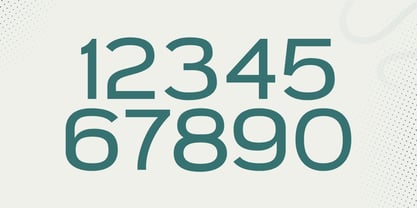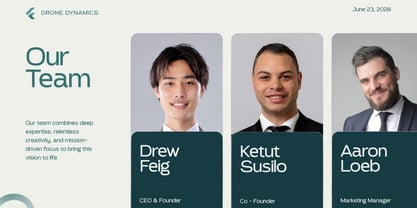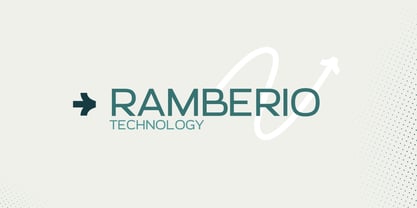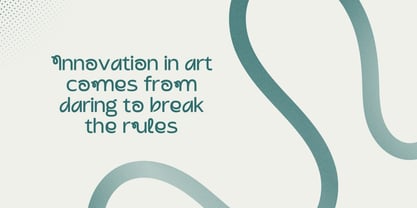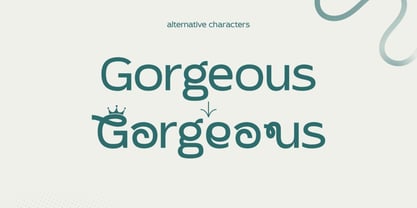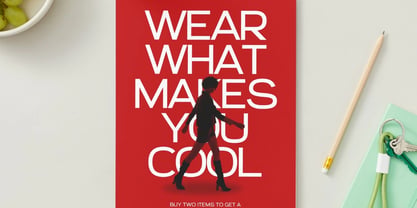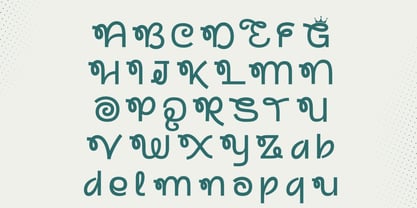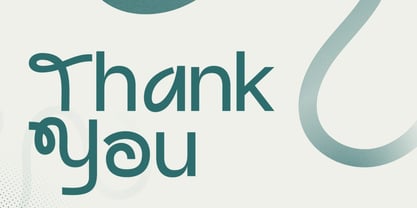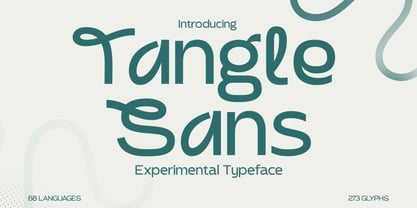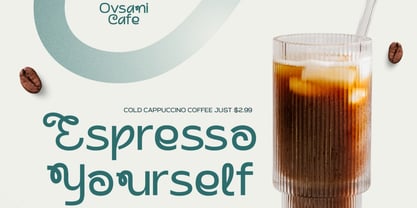
Tangle Sans
by Hipfonts
The Tangle Sans Font Family was designed by Igor Ovsyannykov and published by Hipfonts. Tangle Sans contains 1 styles. More about this family
Tangle Sans is an experimental sans-serif typeface that blends modern simplicity with artistic unpredictability. Designed with 39 unique stylistic alternates, smooth curves, and a playful mix of organic shapes, this font brings a creative twist to every character. The standard set offers a clean, contemporary sans-serif ideal for everyday branding, while the alternates introduce quirky, whimsical letterforms that instantly add personality and flair. With support for 68 languages and a total of 273 glyphs, Tangle Sans is as versatile as it is expressive. Its fresh, youthful energy makes it perfect for adventurous design projects—from bold display headlines to stylish logos, invitations, book covers, editorial layouts, product packaging, posters, mugs, labels, magazine spreads, and more. Whether you're crafting a vibrant brand identity, building eye-catching social graphics, or exploring artistic concepts, Tangle Sans brings creativity to the forefront. It’s modern, dynamic, and endlessly fun to experiment with.
Designers: Igor Ovsyannykov
Current Foundry: Hipfonts